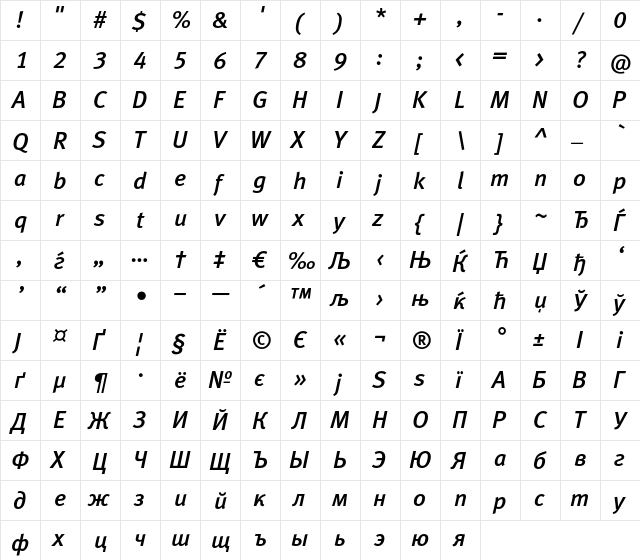
MetaMediumCyrLF-Italic Regular
Design Context for MetaMediumCyrLF-Italic Typeface
MetaMediumCyrLF-Italic is a composed and adaptable typeface that performs quietly and consistently across a wide range of design contexts. The dynamic lean of this cut emphasises speed and emphasis in any layout.
Pro Tip: Try MetaMediumCyrLF-Italic for annotation and caption copy alongside an upright companion — the contrast in angle creates a dynamic but ordered typographic system.